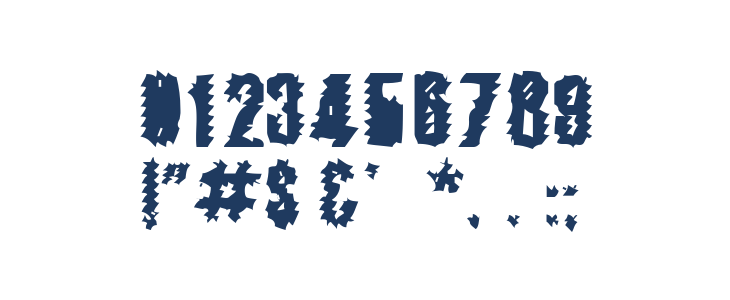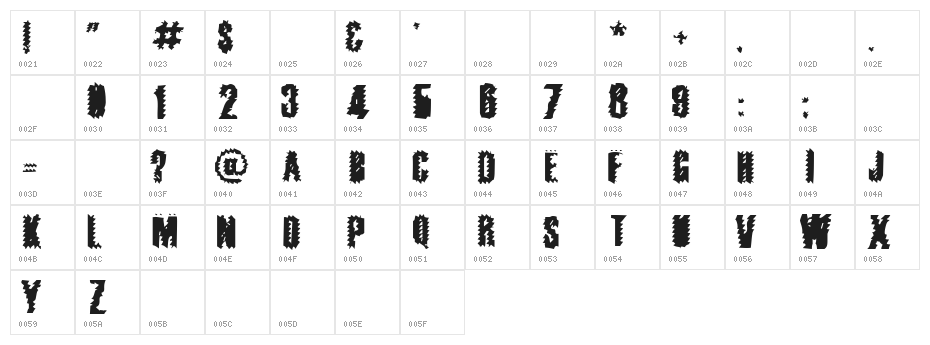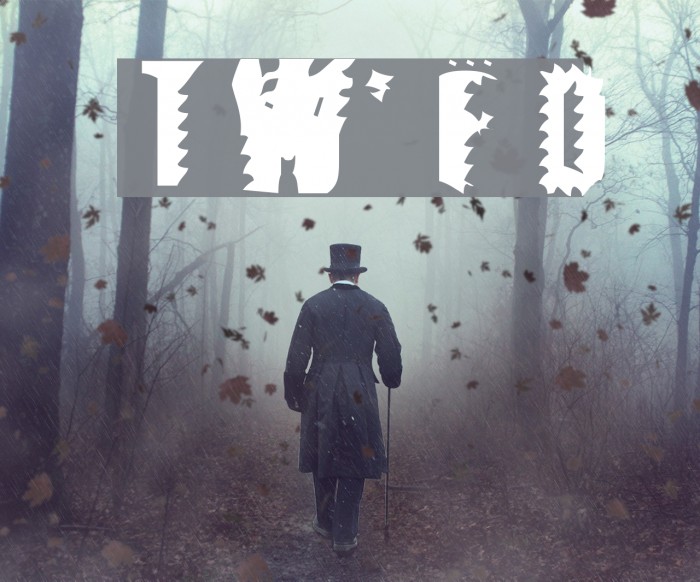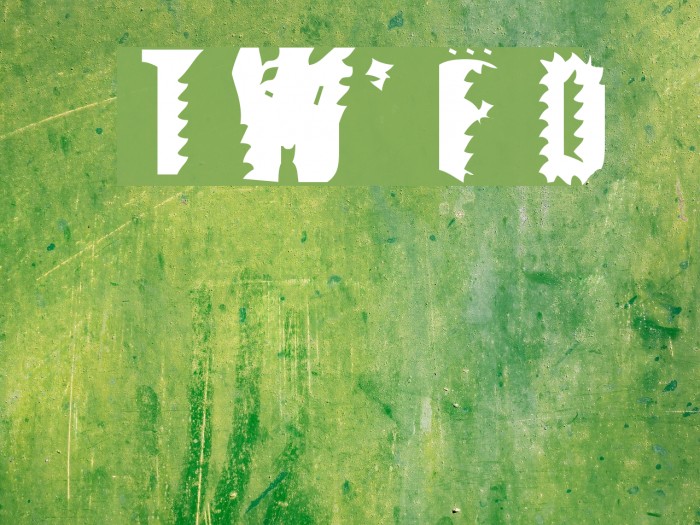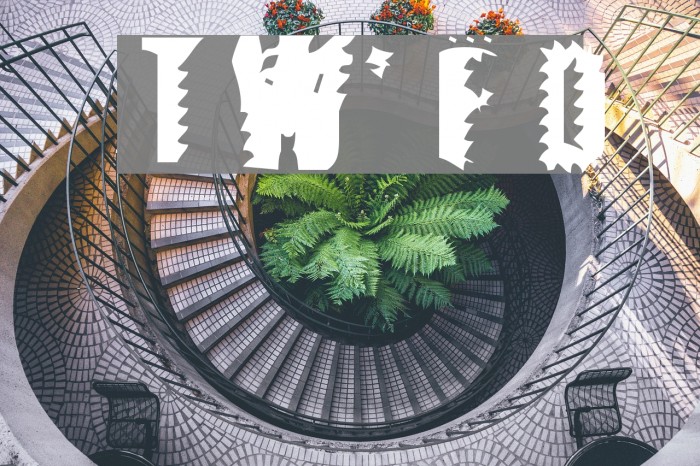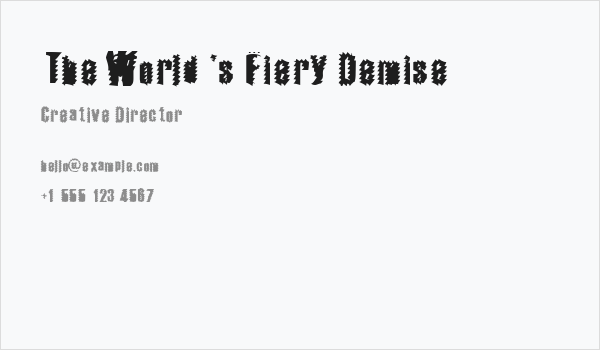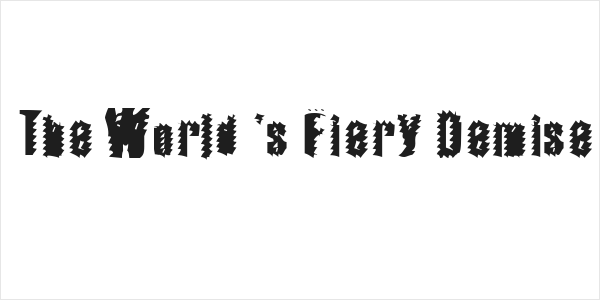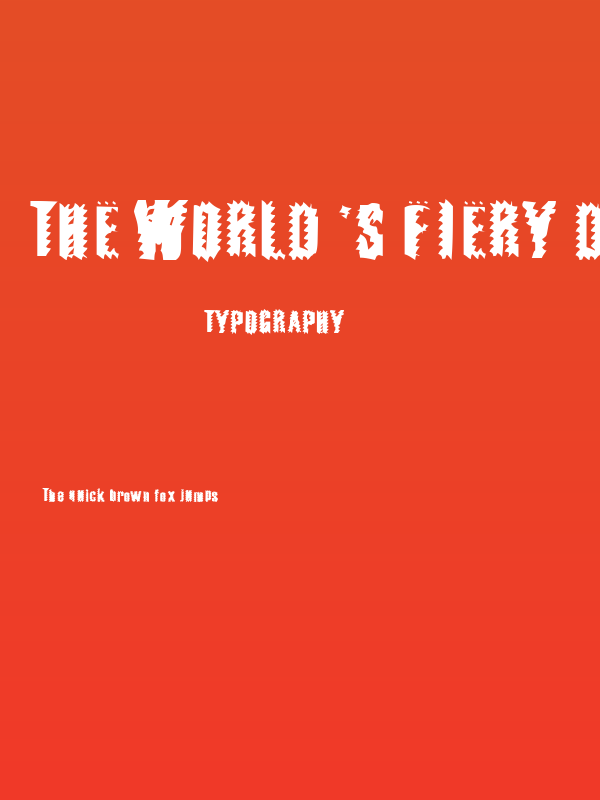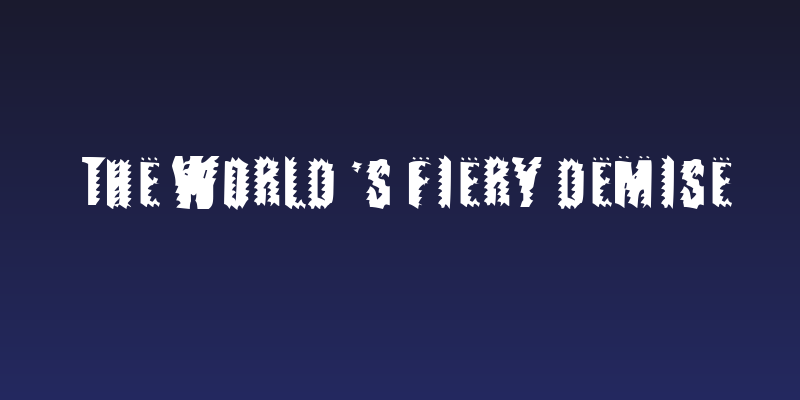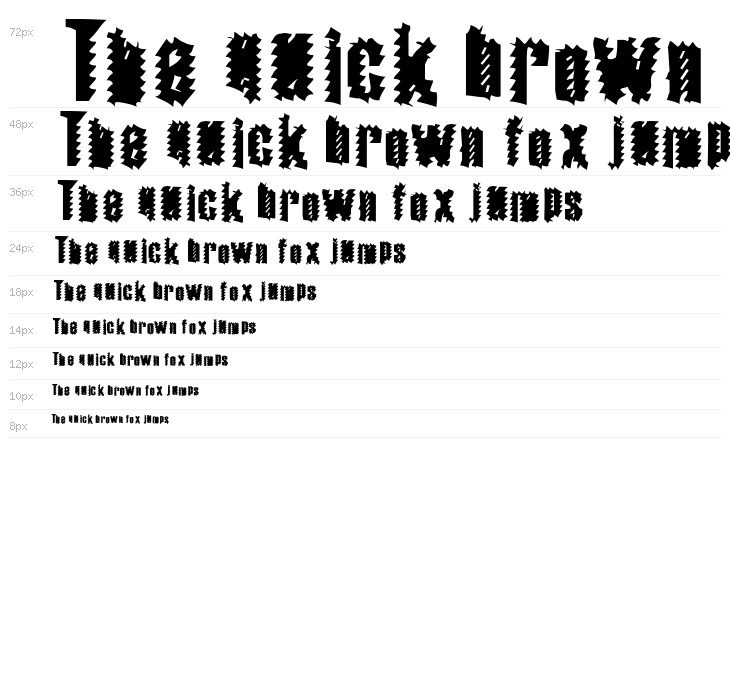
The World's Fiery Demise Font
The World's Fiery Demise Description
This font features a bold and jagged design, reminiscent of flames or sharp edges, giving it a fiery and intense appearance. The characters are heavily stylized with irregular, angular shapes that create a sense of movement and energy. Each letter and number is distinct, with a high level of detail that emphasizes the chaotic and dynamic nature of the font. The uppercase and lowercase letters maintain a consistent style, while the numbers and special characters complement the overall theme. This font is designed to capture attention and convey a sense of urgency or excitement.